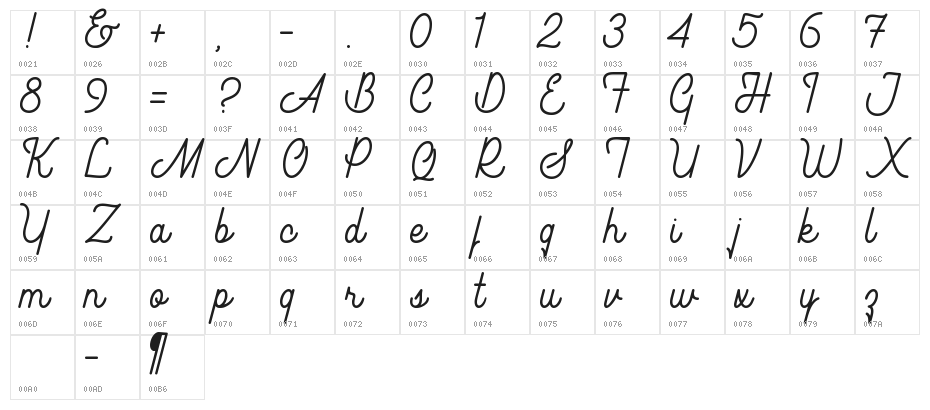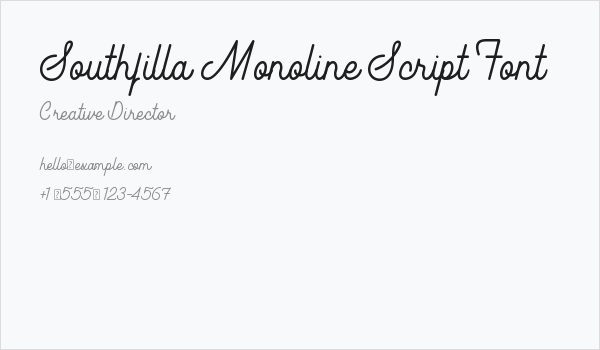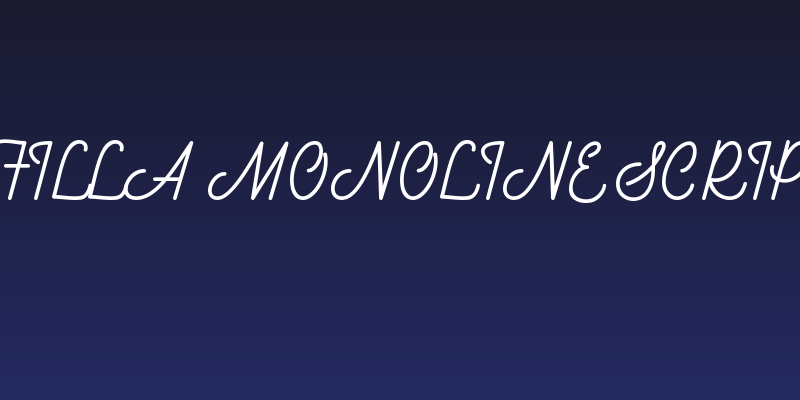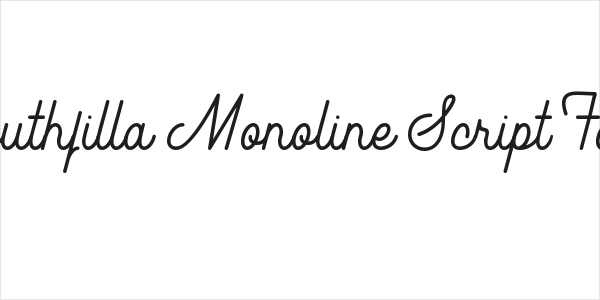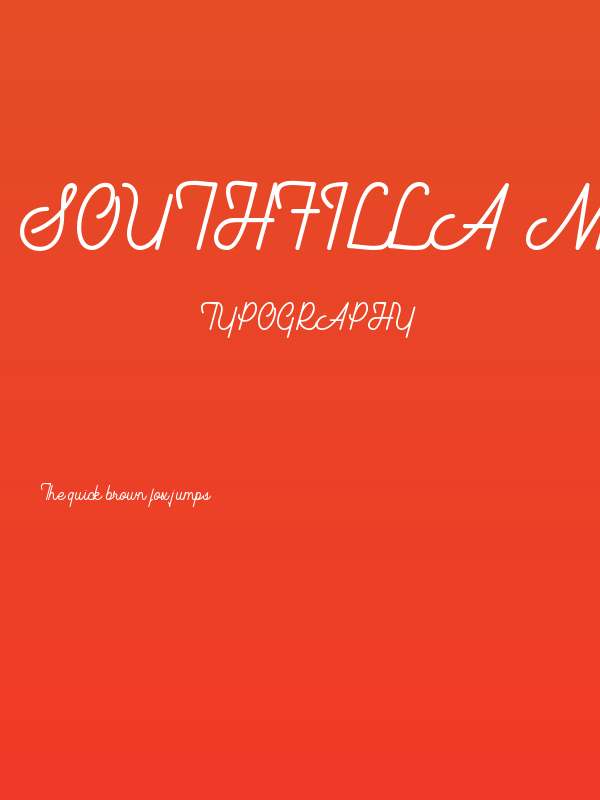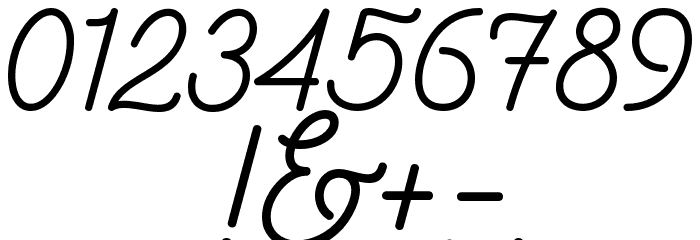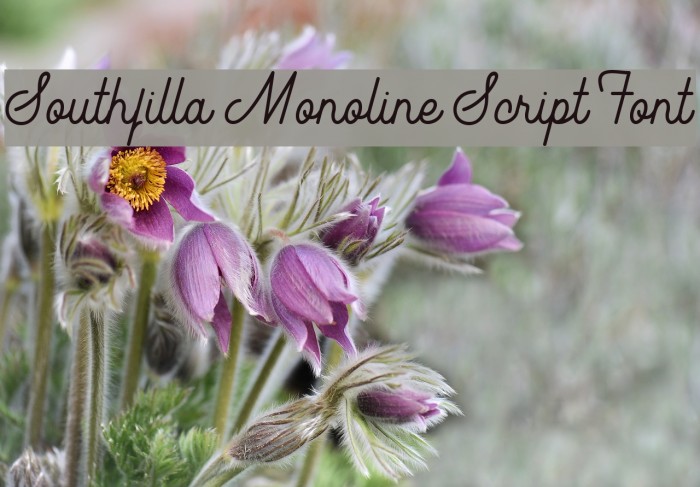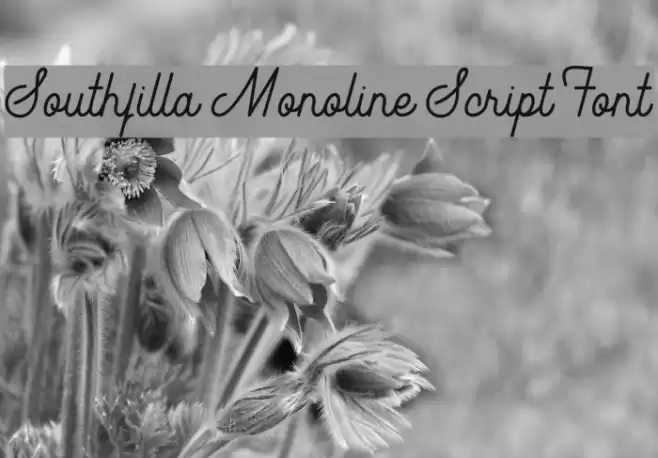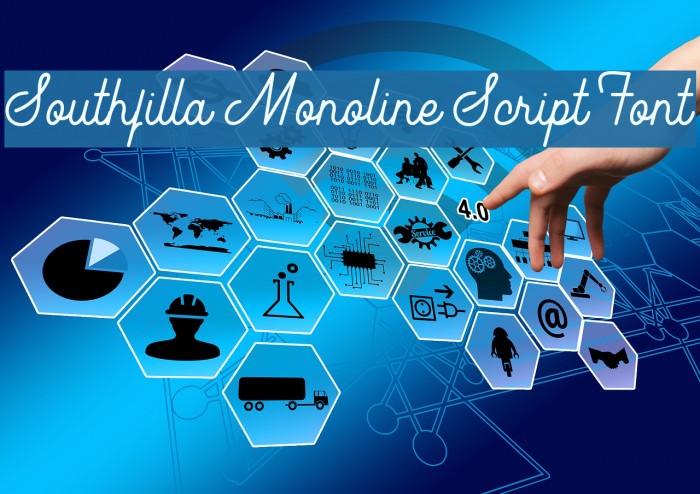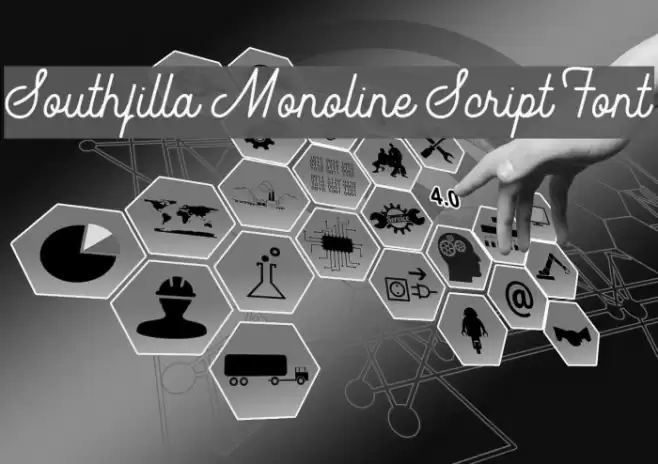
Southfilla Monoline Script Font Font
Southfilla Monoline Script Font Description
This elegant script font features a smooth, flowing monoline style that exudes sophistication and grace. The uppercase letters are slightly more formal, with a gentle slant and consistent stroke width, while the lowercase letters maintain a harmonious flow with rounded edges and subtle connections. The numerals are clear and legible, matching the overall aesthetic with their balanced curves. Special characters are thoughtfully designed to complement the script's fluidity. This font is perfect for projects that require a touch of elegance and personal flair.
| Overall Style | Elegant |
| Use Case | Logos, Invitations, Branding |
| Proposed Projects | Ideal for wedding invitations, branding, greeting cards, and elegant signage. |